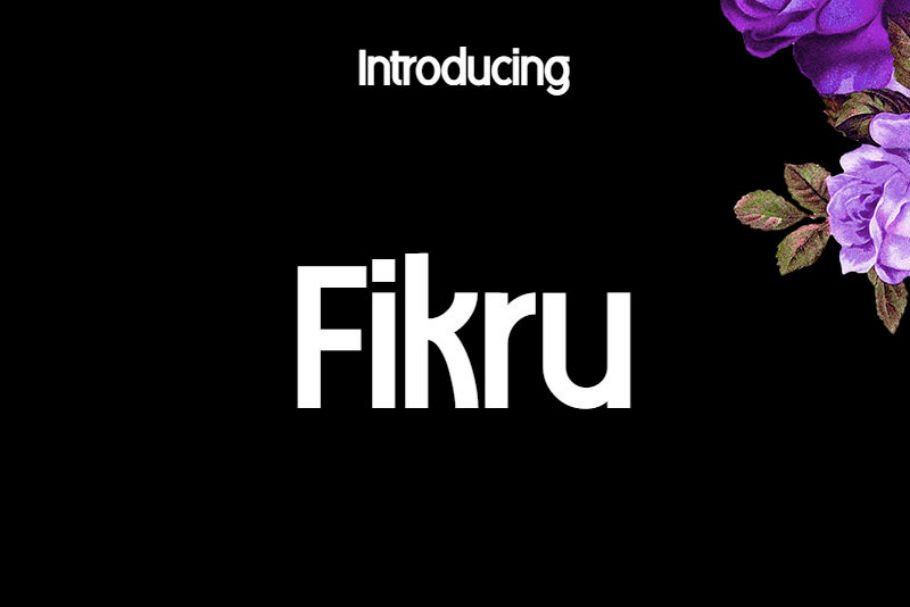
Fikru Font
Fikru Font is perfect for creative agencies, artistic projects, innovative branding, cultural events, educational materials, book covers, poster designs, gallery exhibitions, creative portfolios, and inspirational quote graphics.
Fikru Font is exciting because it embodies the essence of intellectual creativity and artistic expression, making it a powerful tool for projects that aim to inspire and engage thoughtful audiences. This font brings a sense of wisdom and contemplation to any design, making it ideal for brands and organizations that value knowledge, creativity, and cultural depth. Its unique character design reflects the beauty of thoughtful communication and artistic vision.
Fikru Font family includes regular, medium, bold, and light weights, along with condensed and expanded variations, providing designers with diverse options for creating dynamic and expressive typographic compositions.
This distinctive typeface merges contemporary design trends with intellectual sophistication, making Fikru Font Free Download an outstanding choice for projects that require both visual impact and meaningful depth. The font's carefully balanced proportions and thoughtful details create typography that encourages reading and reflection while maintaining strong visual presence.
Whether you're designing educational publications, cultural institution materials, or creative agency branding, Fikru Font delivers the perfect combination of artistic flair and professional reliability. The font performs exceptionally well in both digital and print environments, from website headers to museum exhibition catalogs and academic publications.
Creative professionals appreciate Fikru Font for its ability to convey intelligence and creativity without sacrificing readability or accessibility. The font's versatile nature makes it suitable for both headline applications where its character shines and body text where its clarity supports extended reading experiences.
The typeface features unique character details that add personality while maintaining the structural integrity necessary for professional applications. Each letterform has been crafted to work harmoniously with others, creating smooth text flow that enhances comprehension.